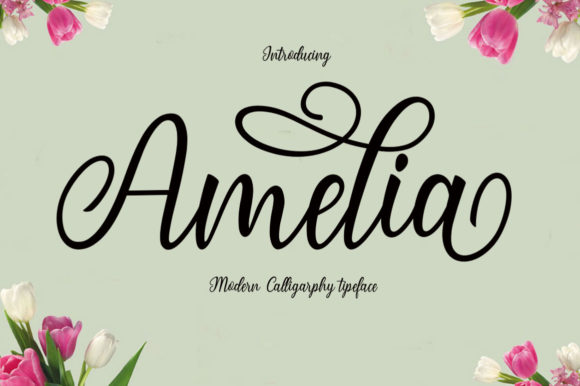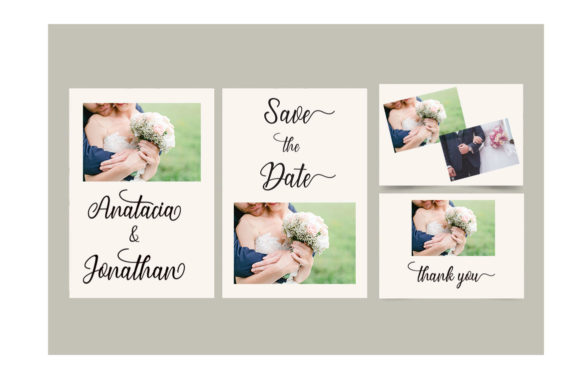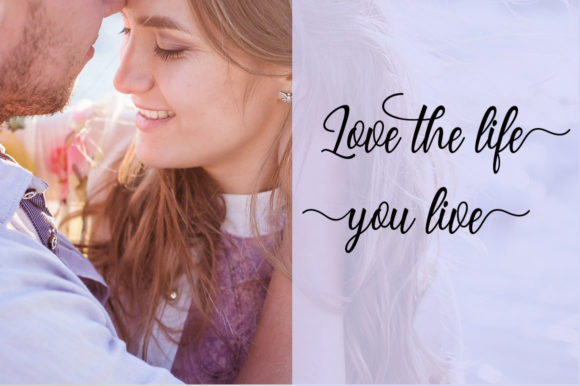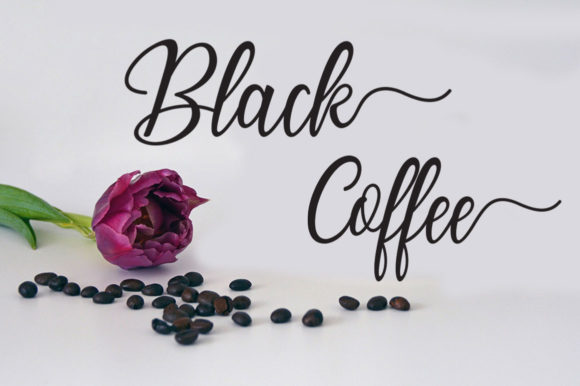
About Amelia Font
Amelia is an elegant and sweet script with a romantic spark. Use it to add that special enchanting touch to any design idea you can think of!